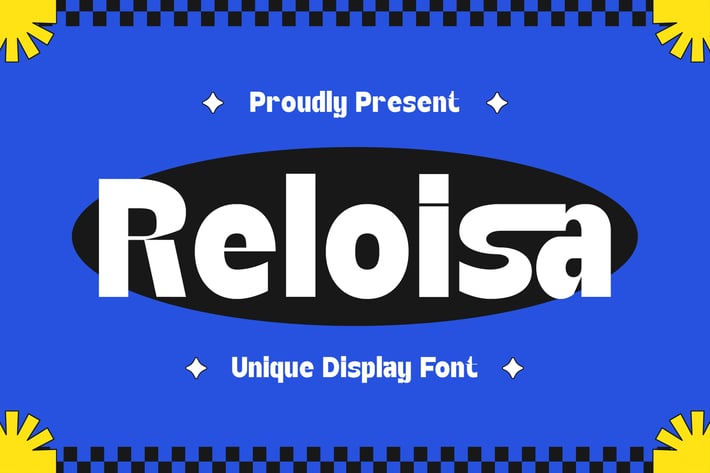
Reloisa - Unique Display Font
Introducing "Reloisa" - a unique display font that stands out with its distinctive style and creative flair, perfect for making a bold statement in your designs.
With its unconventional letterforms and playful details, "Reloisa" offers versatility and originality, making it ideal for branding, posters, packaging, and more.
Embrace the individuality of "Reloisa" as it effortlessly enhances your designs with its eye-catching typography and artistic charm.
Step into the world of creative typography with "Reloisa" and let your imagination run wild with its unique and captivating design.
– Lowercase
– Ligature
– Alternate
– Multilingual Support